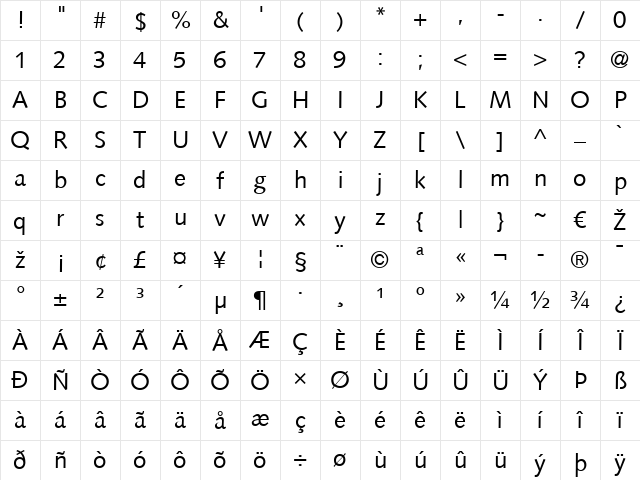
Syntax LT Regular
Design Context for Syntax LT
Syntax LT is a composed and adaptable typeface that performs quietly and consistently across a wide range of design contexts. Its slender proportions lend an understated elegance to any composition.